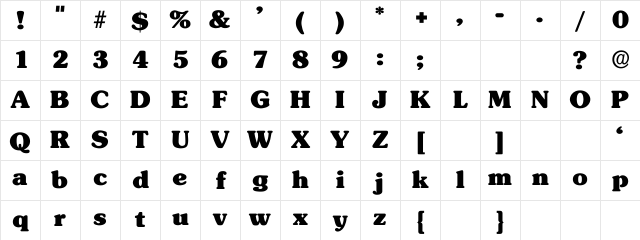
BigEarsBold Regular
Design Context for BigEarsBold
BigEarsBold is a composed and adaptable typeface that performs quietly and consistently across a wide range of design contexts. Its bold stroke weight gives it real presence on the page.